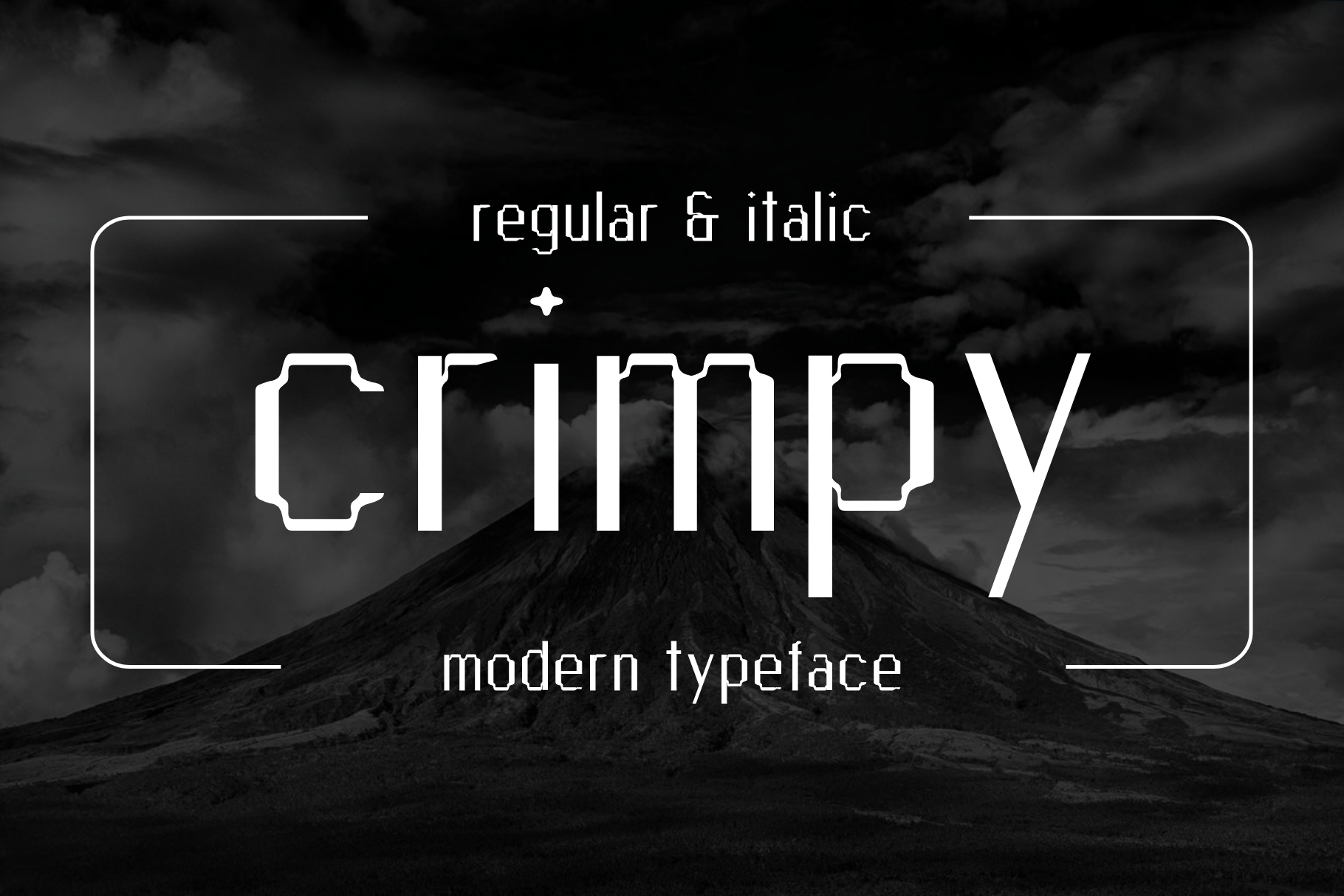
Crimpy - Modern Typeface
Crimpy - beautifully crafted modern typeface with 2 styles (regular & italic) for your awesome projects.
- Consistency
- Well organized
- Easy to use